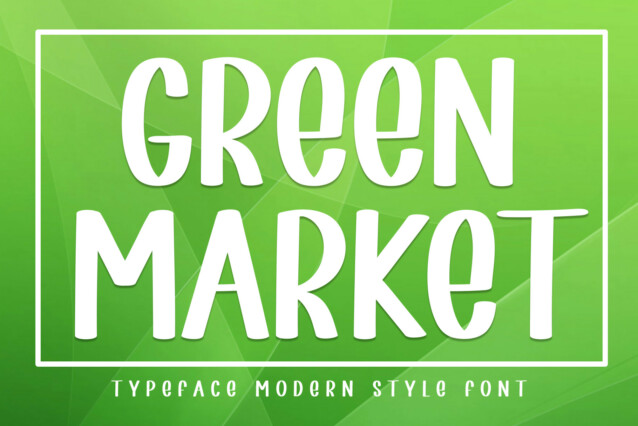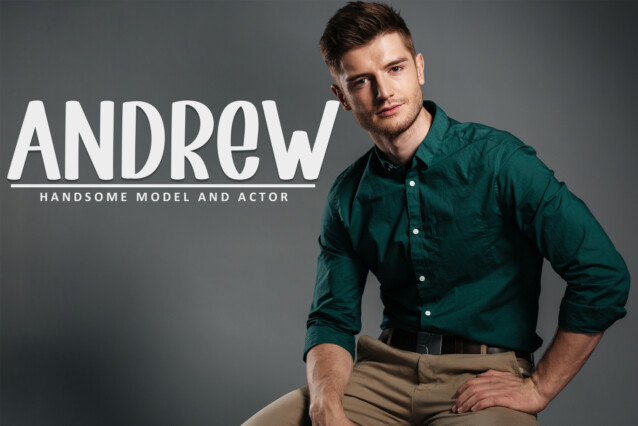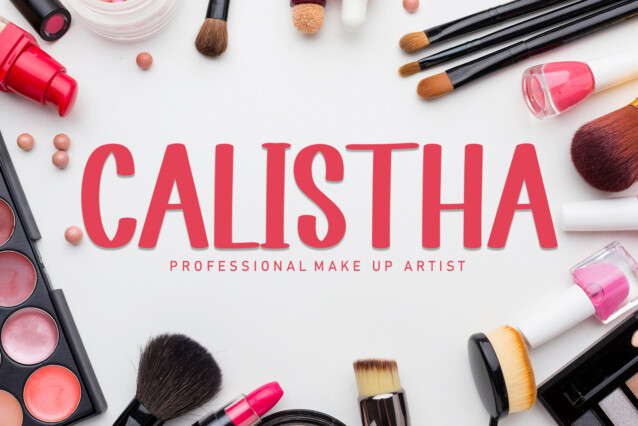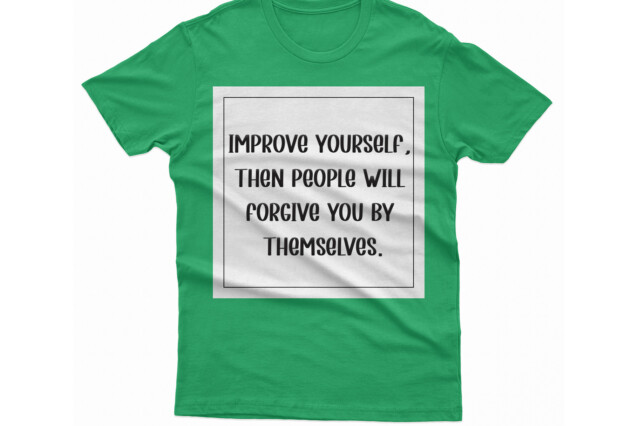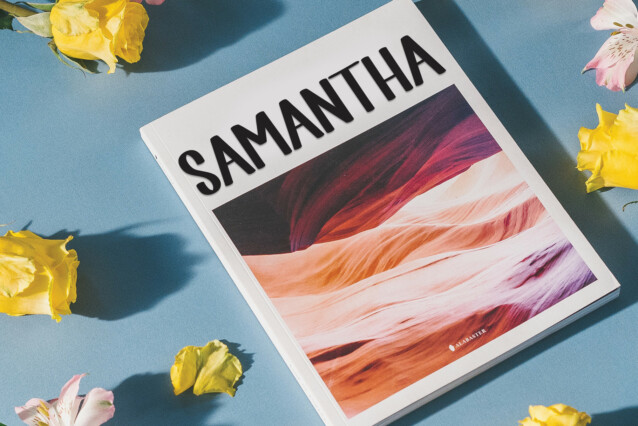
Green Market Script Font is a sweet and friendly handwritten display font. Cute and fun, this font is ideal for writing wedding invitations, cards, or any other design that might need a playful touch!